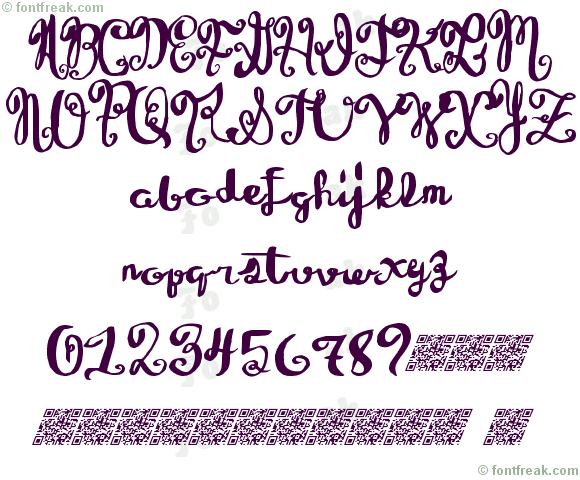
WineTasting
WineTasting — Character Map
About WineTasting
The WineTasting font by Xerographer Fonts is a charming script typeface that captures the essence of sophistication and warmth, making it an excellent choice for a variety of creative projects. This font features elegant, flowing letterforms that are characterized by a moderate stroke weight and a playful contrast between thick and thin lines. The characters are well-spaced, allowing for readability while maintaining a delightful, whimsical quality. Decorative elements, such as swirling tails and curves, enhance its artistic flair, making it stand out in any design.
The WineTasting font is particularly suitable for wedding invitations, where its romantic style can add an elegant touch to the overall theme. It also works beautifully for restaurant menus, especially those highlighting wine selections or gourmet dishes, providing an inviting and upscale ambiance. Additionally, this font can be effectively utilized in promotional materials for wine tasting events or festivals, where its playful vibe can attract attendees. Graphic designers will find it a valuable asset for branding projects that require a personal and sophisticated touch, while small business owners can leverage it for creating eye-catching signage or marketing materials.
Targeting graphic designers, content creators, and small business owners, the WineTasting font free download offers a unique opportunity to infuse creativity into various projects. Its versatility ensures it can adapt to different themes and styles, from rustic to modern. What truly sets this font apart is its ability to evoke a sense of joy and celebration, making it perfect for any occasion that calls for a touch of elegance and whimsy. Whether you're planning an event or enhancing a brand, the WineTasting font delivers a distinctive and memorable visual experience.